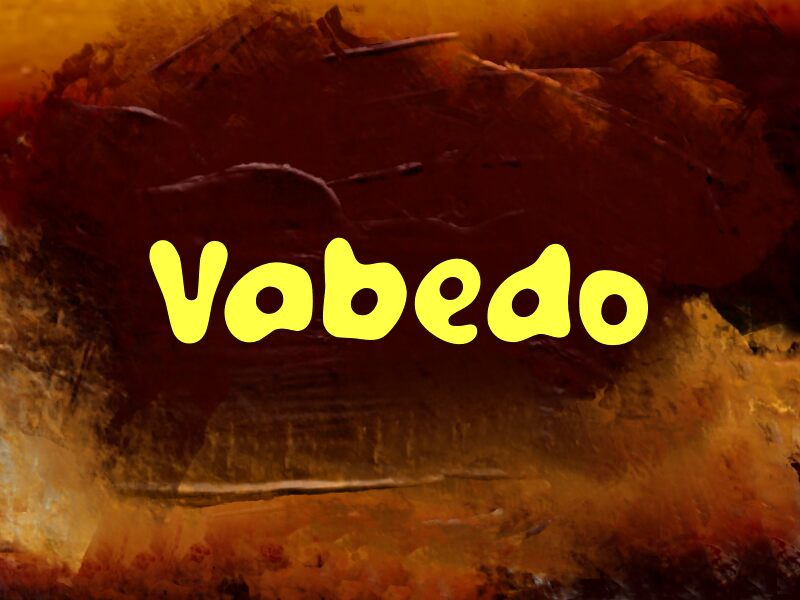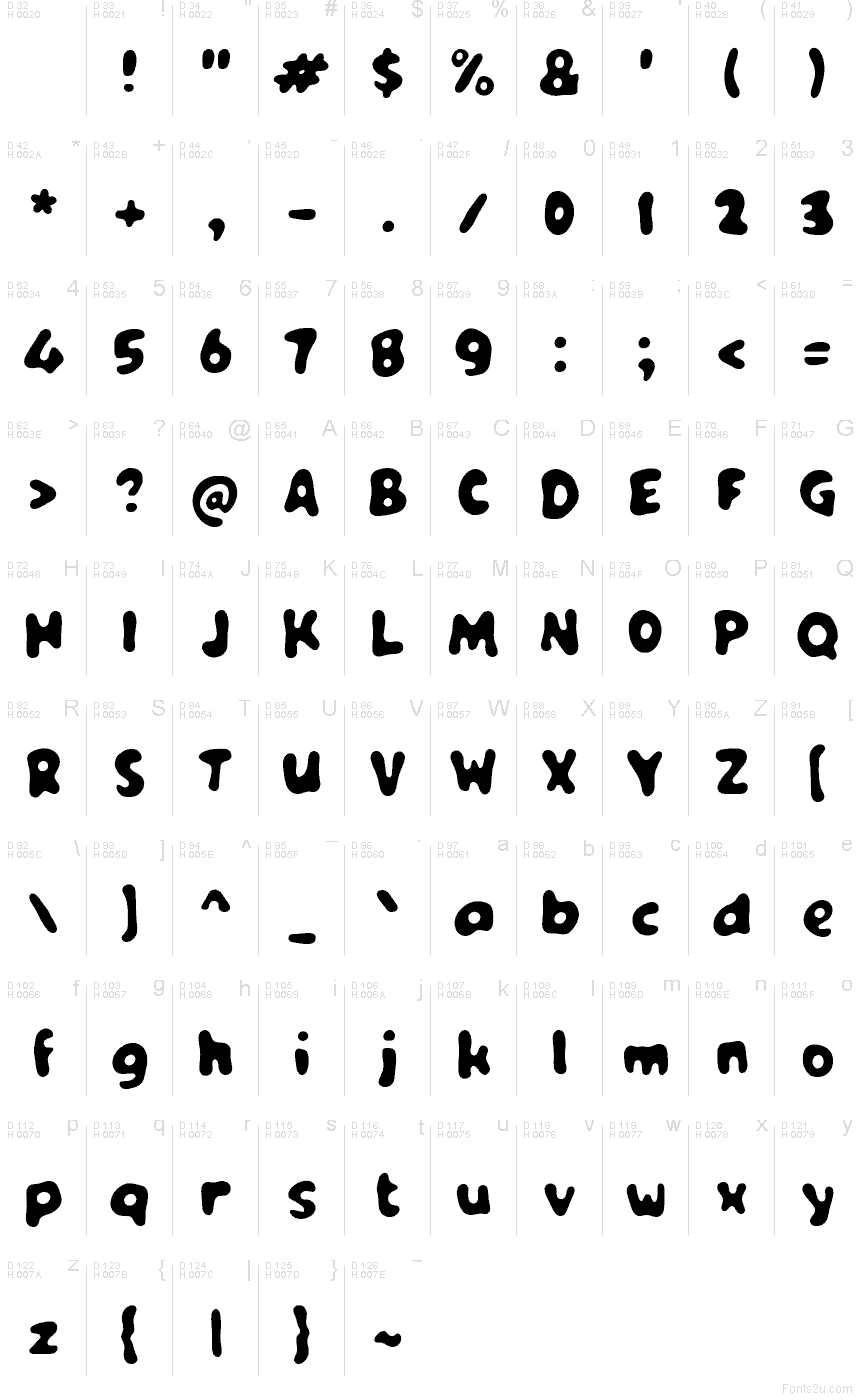
Vabedo
Vabedo font by wep is a free groovy display typeface that looks like it’s been poured onto the page in thick, inky blobs. The letters swell and wobble with a soft, almost liquid charm, giving every word a fun, bouncy rhythm. Its rounded, blobby shapes feel friendly and hand-formed, making even short headlines feel like they’re moving and alive.
Using Vabedo, you can bring a playful, retro energy to party flyers, kids’ packaging, music posters, YouTube thumbnails, stickers, and bold merch graphics. This free font shines when it’s big and loud, where the chunky curves and uneven silhouettes can really breathe. Pair Vabedo with a clean, light sans serif in the small text to keep things readable while letting the groovy forms steal the spotlight.